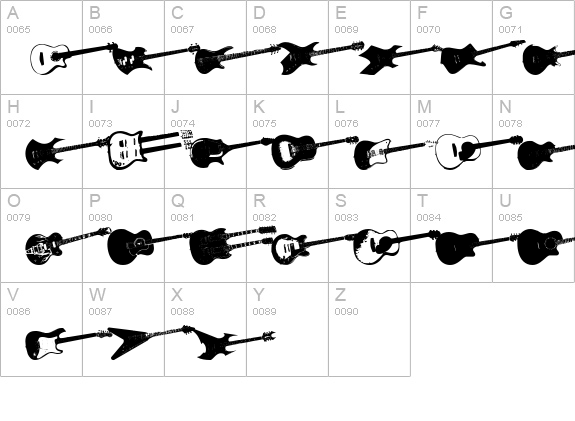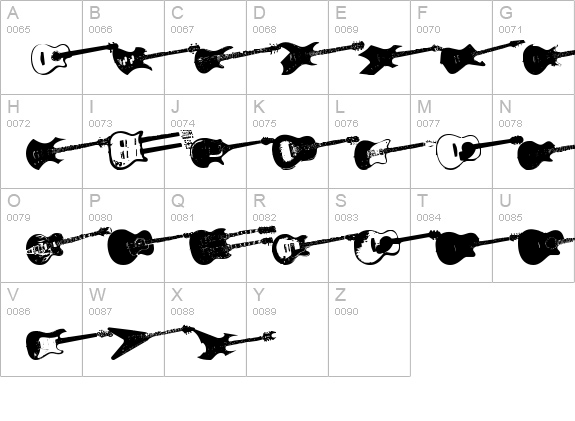
Screaming Guitar Font Details
Introducing the electrifying and dynamic Screaming Guitar font, a typeface that will take your designs to a whole new level of rockstar energy! With its bold and aggressive letterforms, this font screams rebellion and passion, capturing the essence of a roaring guitar solo. Designed for those who crave the raw power and intensity of rock music, Screaming Guitar font amplifies your message with its edgy and distorted style. Each letter is meticulously crafted to resemble the energetic strums of a guitar, creating a visual representation of the electrifying sound waves that resonate on stage. This font is not for the faint of heart. It demands attention and commands the stage, making it perfect for album covers, concert posters, music merchandise, and any design that needs to make a statement. Whether you're designing for a rock band, a music festival, or a brand that wants to convey a rebellious spirit, Screaming Guitar font will bring your vision to life with its unrivaled intensity. And the best part? Screaming Guitar font is absolutely free! That's right, you can freely download this font at FontsMarket.com, where it's available for both personal and commercial use. So, no matter if you're a professional designer or a passionate rock enthusiast, this font is at your fingertips, ready to rock your designs and inspire creativity. Don't miss out on the opportunity to add a touch of rock and roll to your next project. Download Screaming Guitar font today and unleash the power of music in every stroke of your design. Let your typography scream with passion and rebellion, and watch your creations come alive with the energy of a roaring guitar solo.